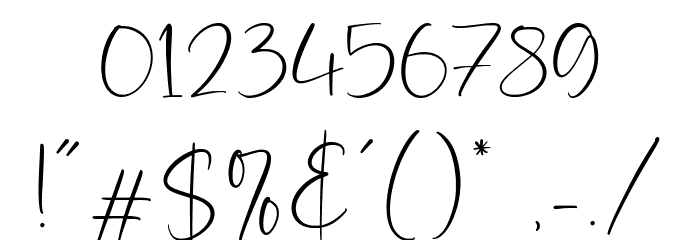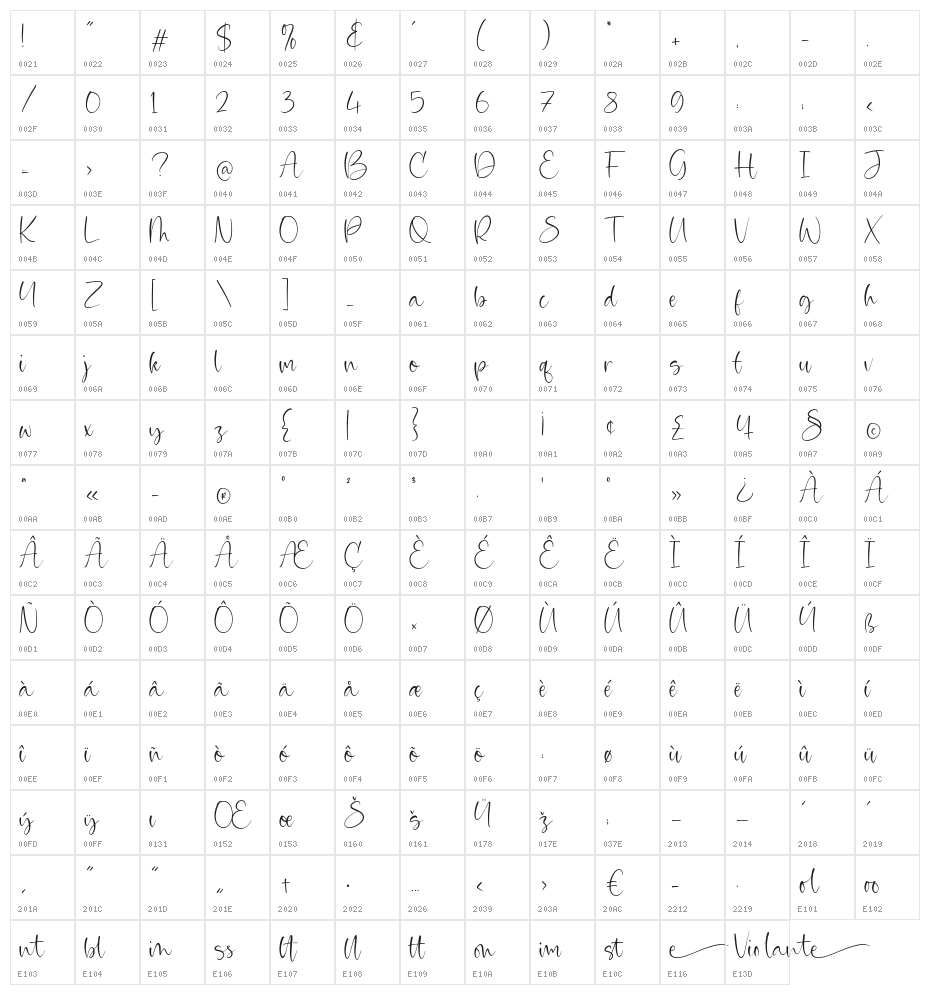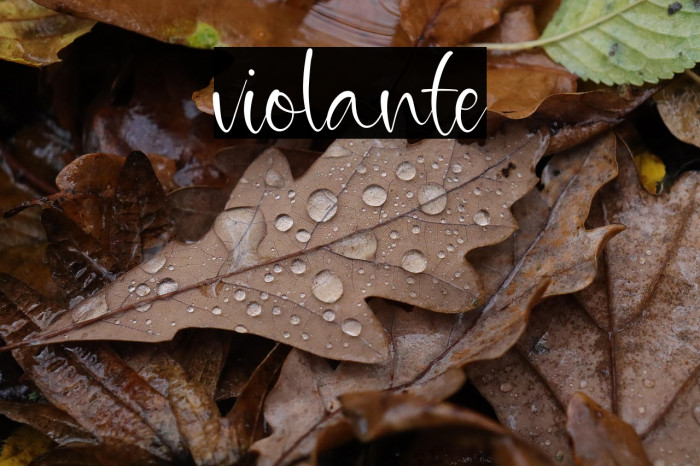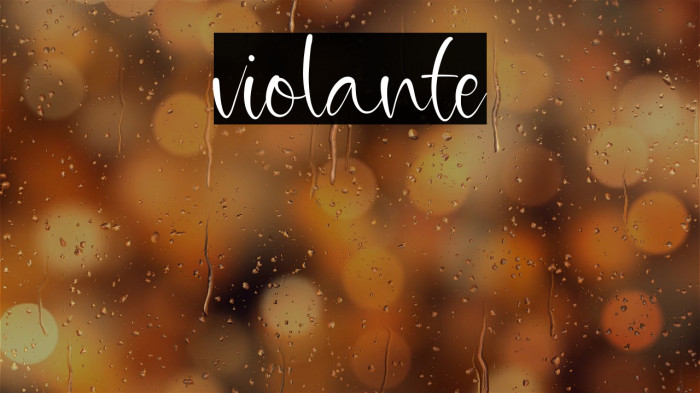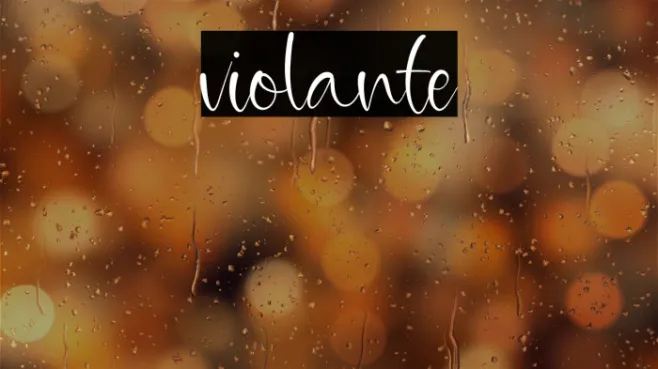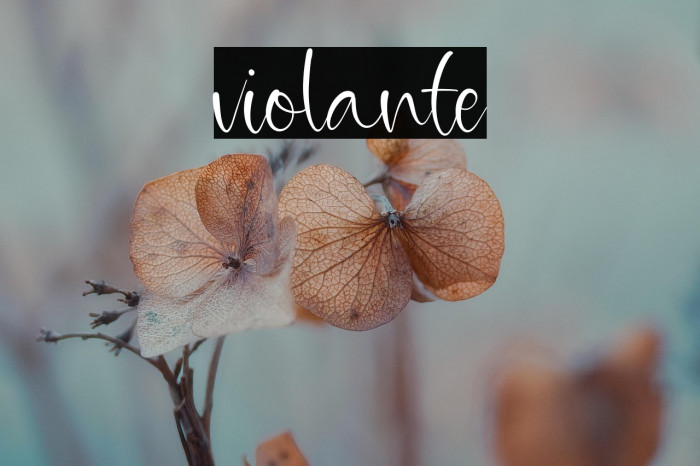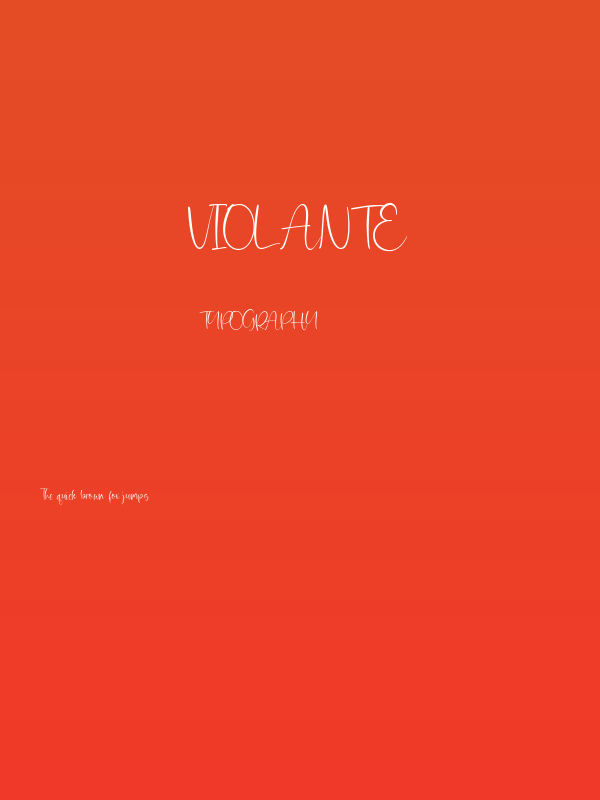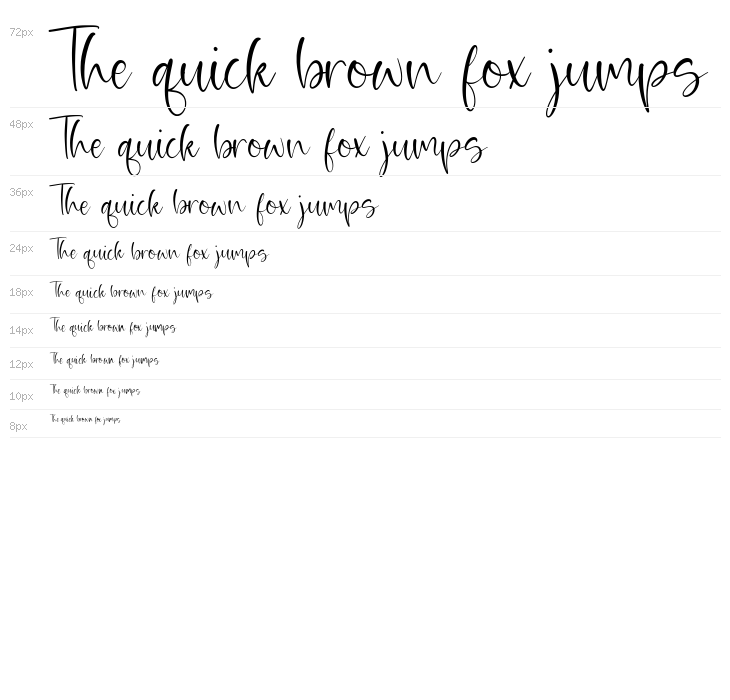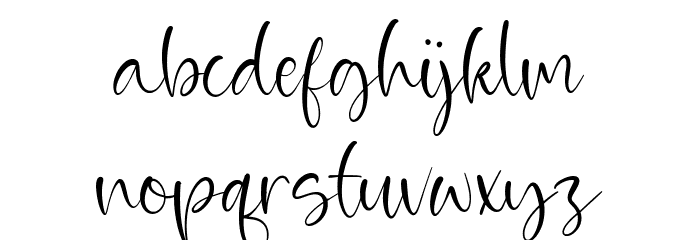
violante Font
violante Description
This font features a lively and expressive handwritten style, characterized by its fluid and dynamic strokes. The letters are elegantly connected, giving it a natural and organic flow. The uppercase letters are tall and slightly narrow, while the lowercase letters maintain a consistent rhythm with playful loops and curves. The numbers are clear and legible, matching the overall aesthetic of the alphabet. Special characters are creatively integrated, adding to the font's versatility. This font exudes a sense of creativity and personal touch, making it ideal for projects that require a humanistic and artistic feel.
| Proposed Projects | Ideal for wedding invitations, greeting cards, personal branding, and artistic projects. |